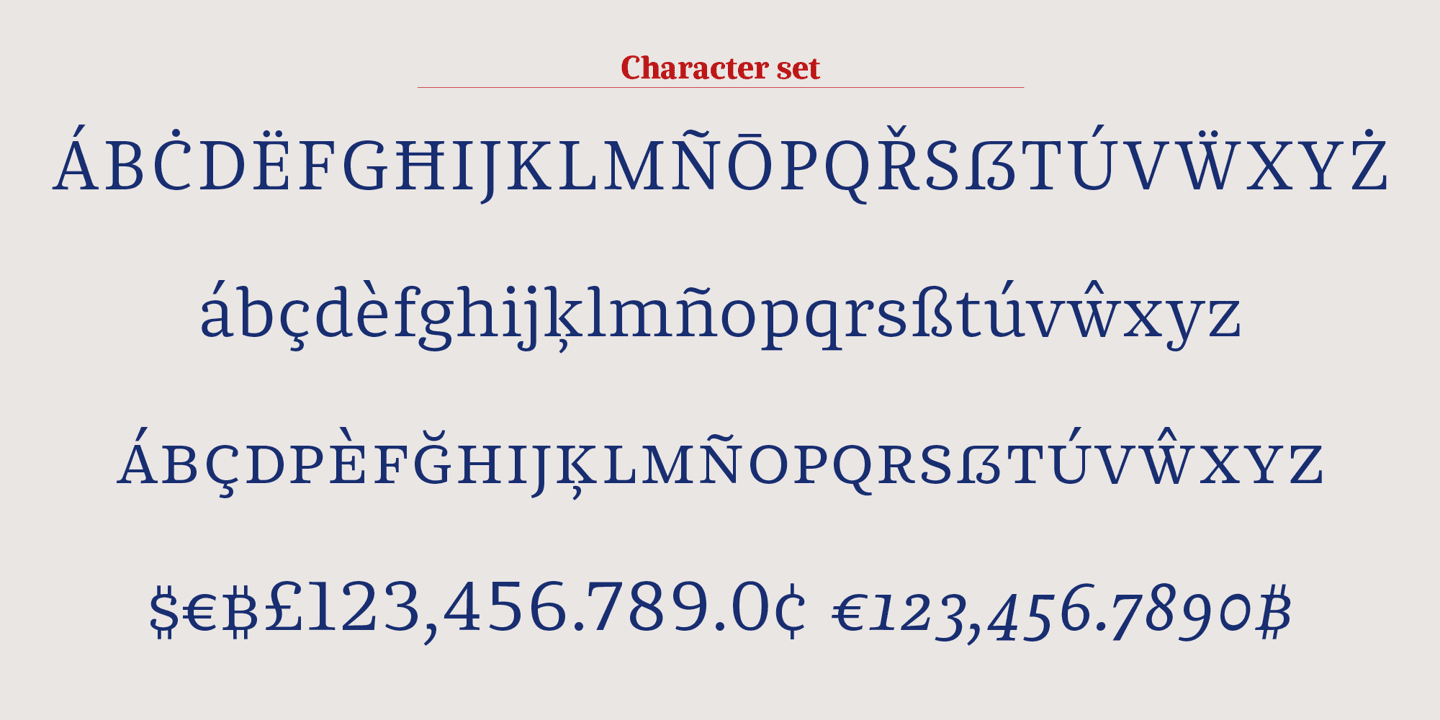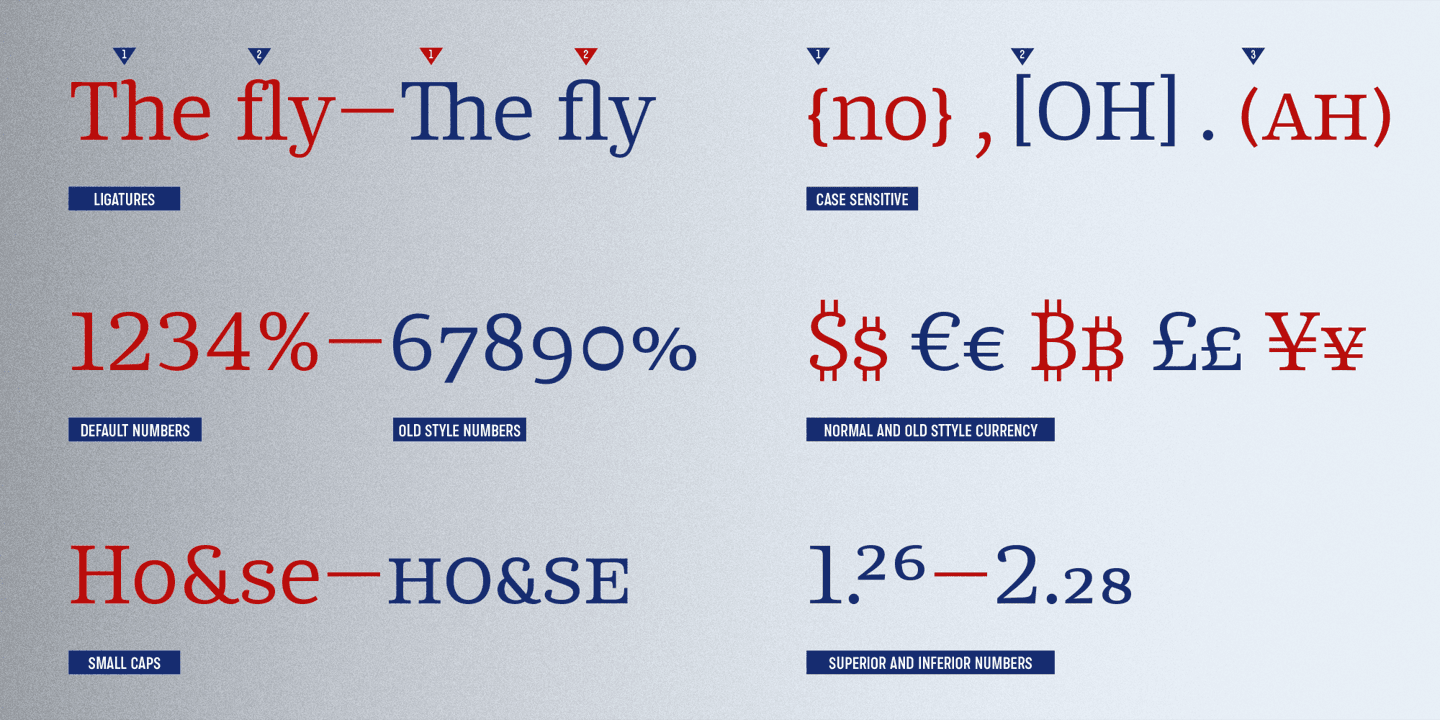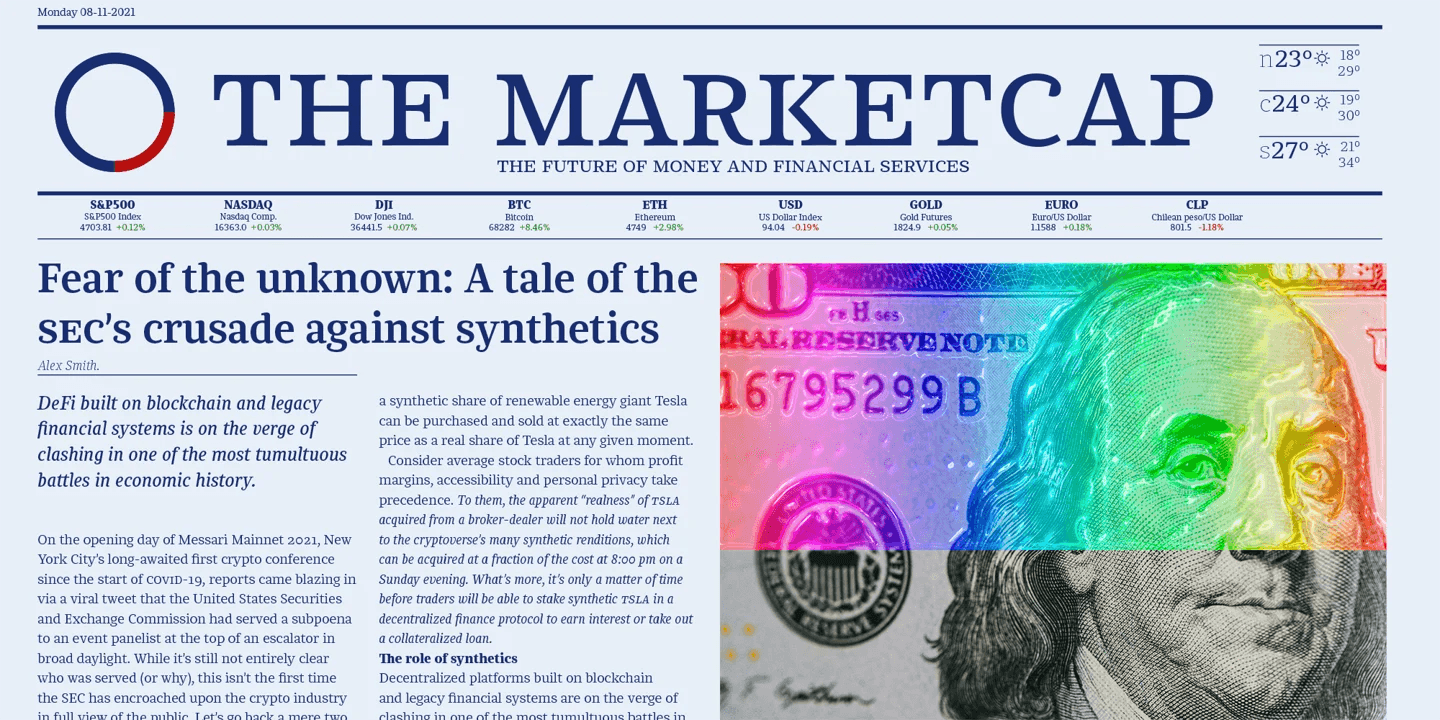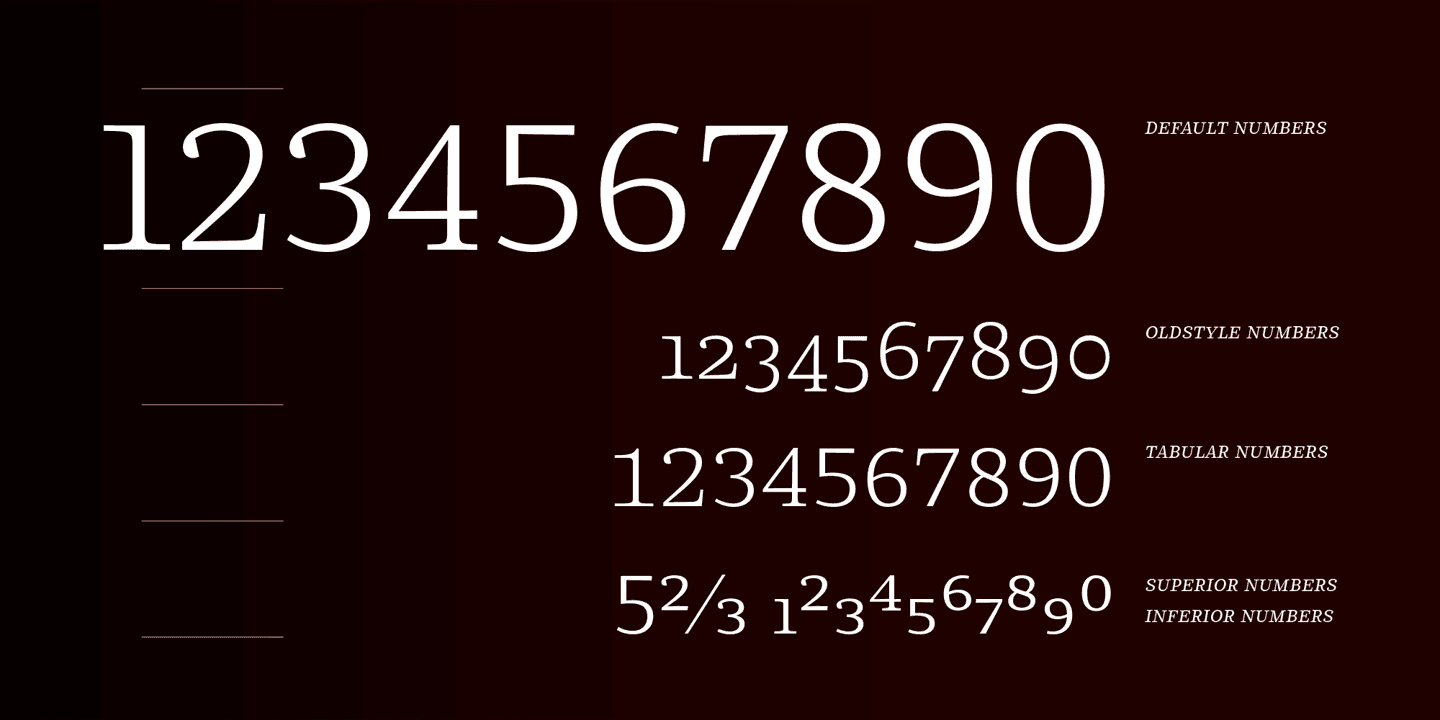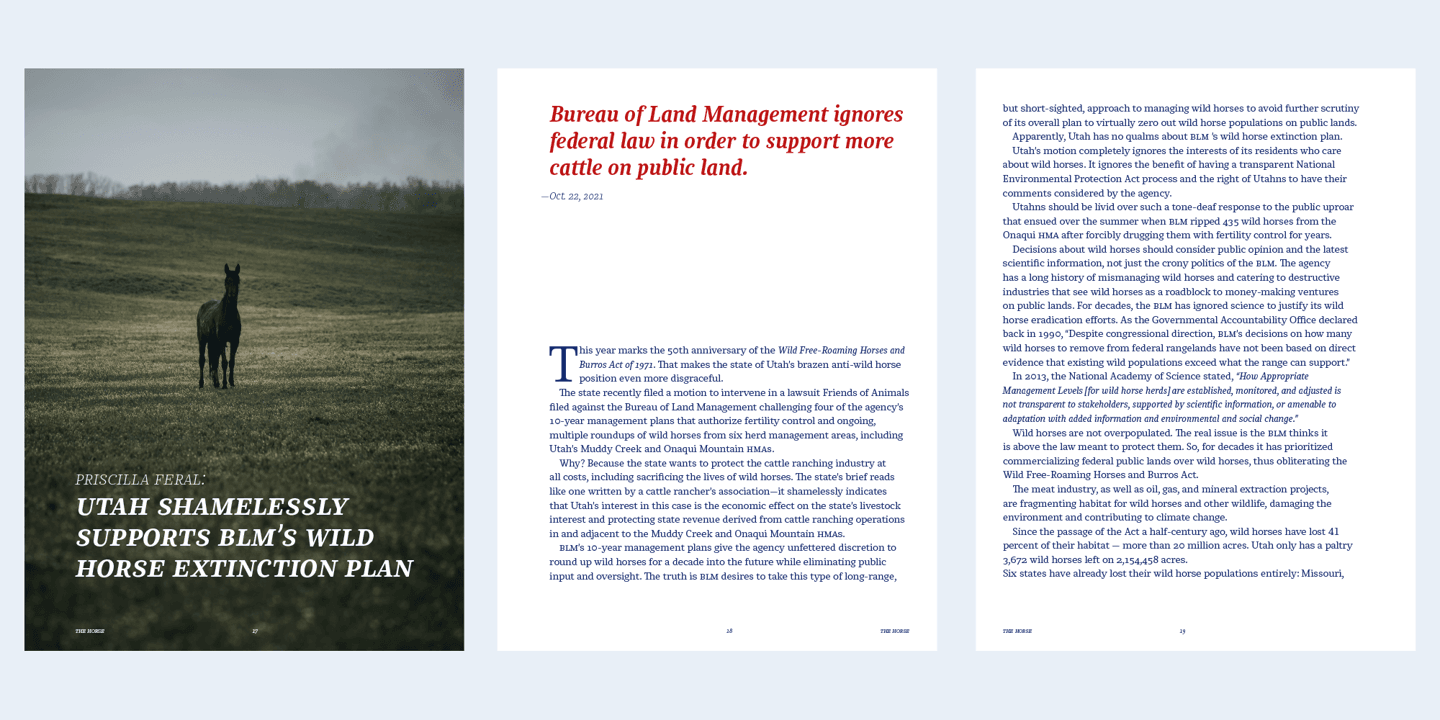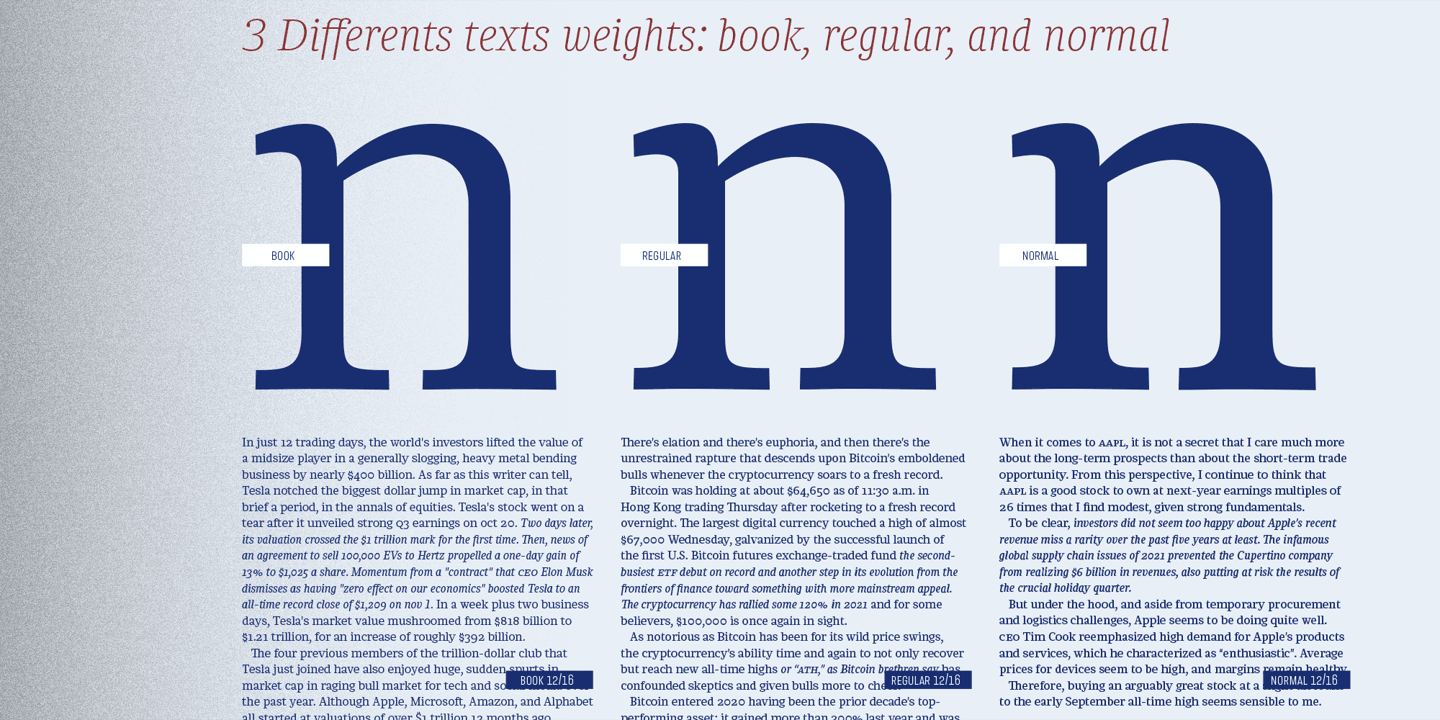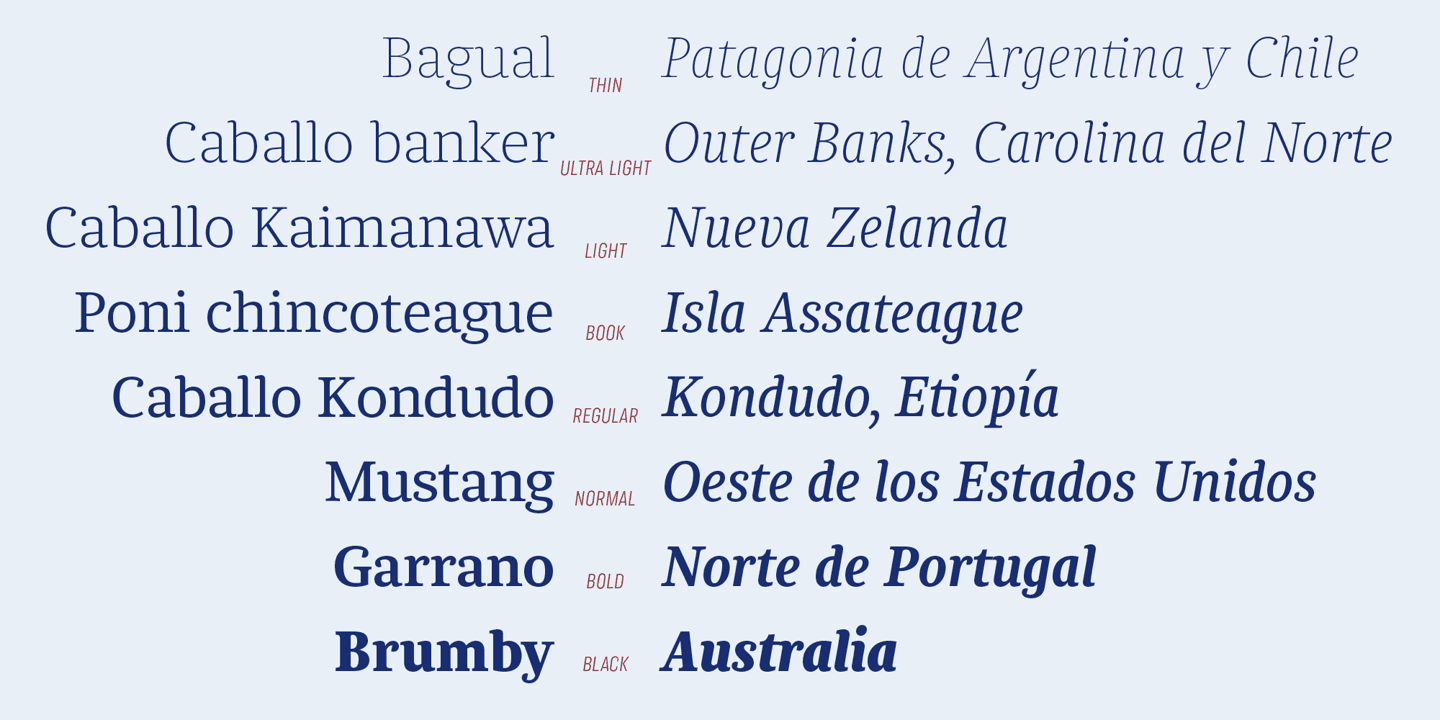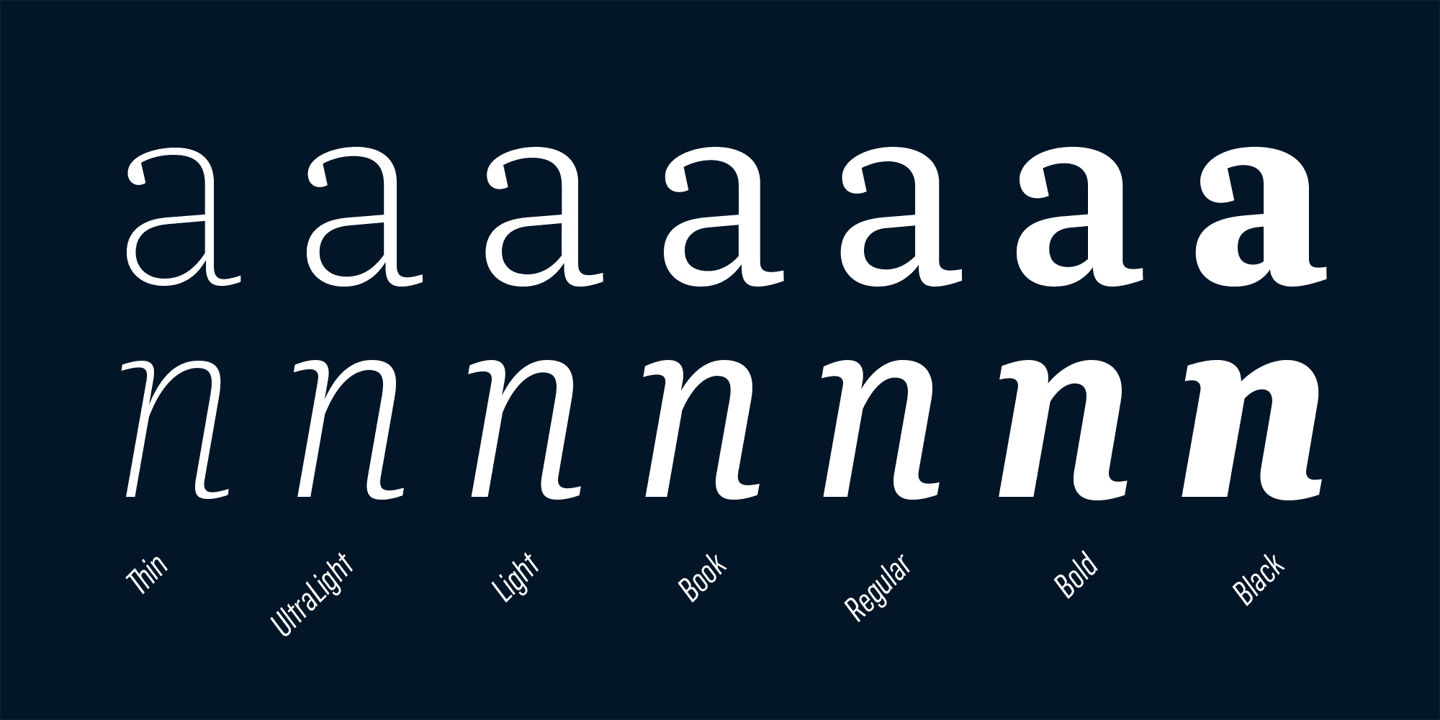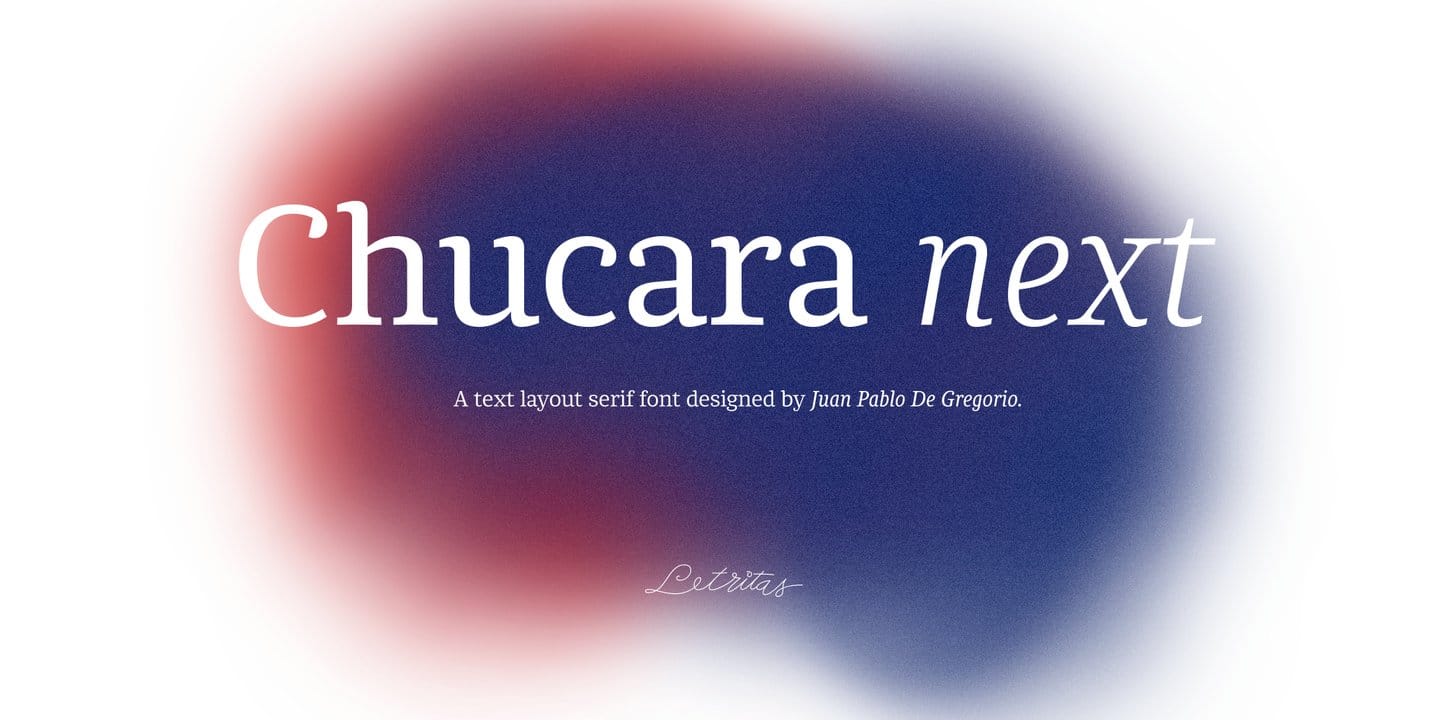
Chucara Next Font Family is a font geared towards high readability when placed in paragraphs or long text. This is a new version with new designs to make it easier to read at any size.
Chucara font family is an optimal typeface for use in books, newspapers, magazines, text, print, headlines, quotes and print…
The typeface comes in 8 slim to black weights and two regular and italic versions. Its 16 fonts contain 635 characters with small caps, different sets of styles and number types. The font supports 219 Latin-based languages, spanning 212 different countries.